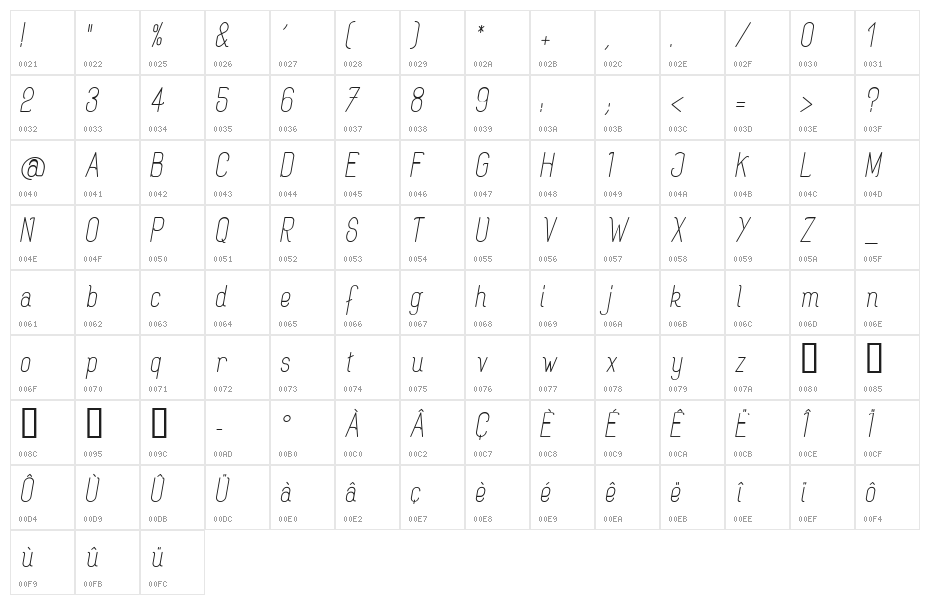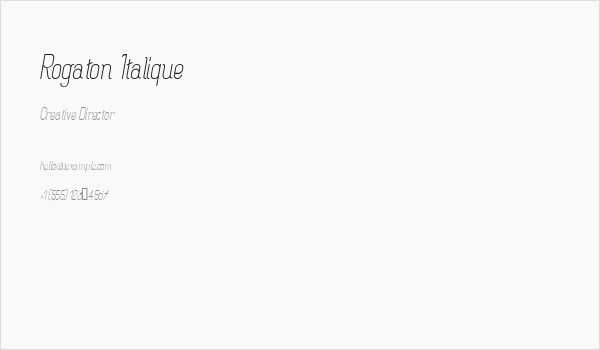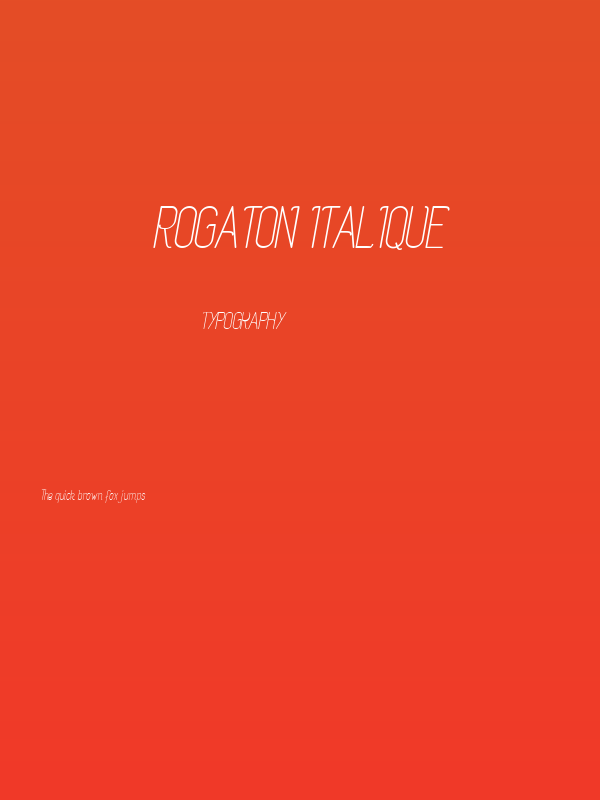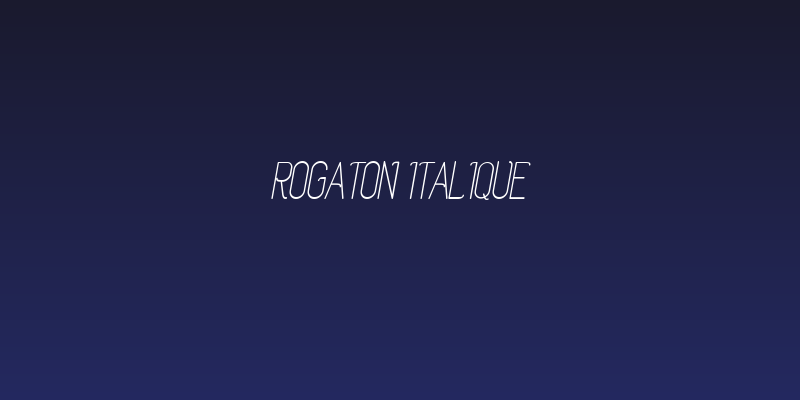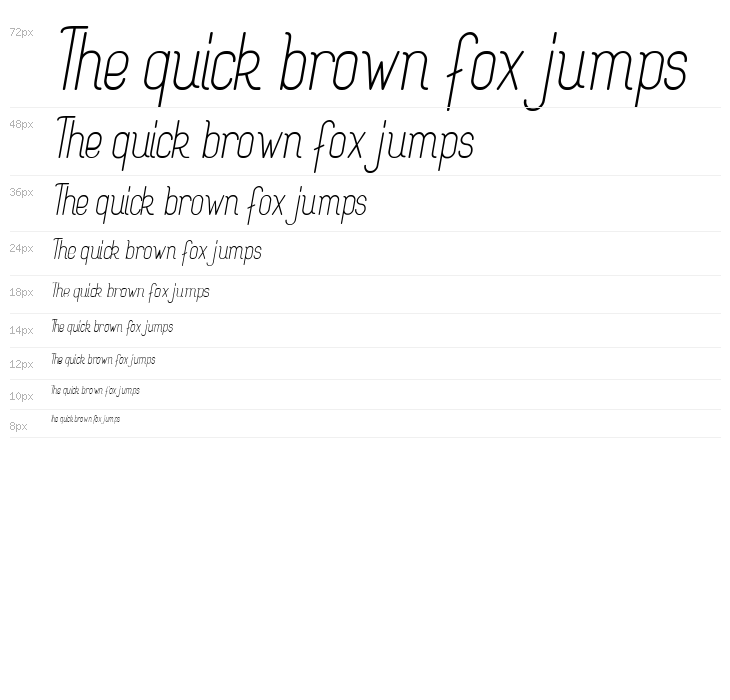
Rogaton Italique Font
Rogaton Italique Description
This font features a sleek, modern design with a distinct italic slant, giving it a dynamic and forward-moving appearance. The characters are elongated and slightly condensed, contributing to a sophisticated and elegant look. The strokes are consistent in thickness, providing a uniform and clean aesthetic. The uppercase and lowercase letters maintain a cohesive style, with a slight curvature that adds a touch of softness to the overall sharpness. The numerals and special characters are designed to match the letterforms, ensuring a harmonious appearance across all text. This font's unique style makes it suitable for projects that require a contemporary and stylish touch.
| Proposed Projects | Ideal for fashion magazines, modern branding, and dynamic advertising campaigns. |